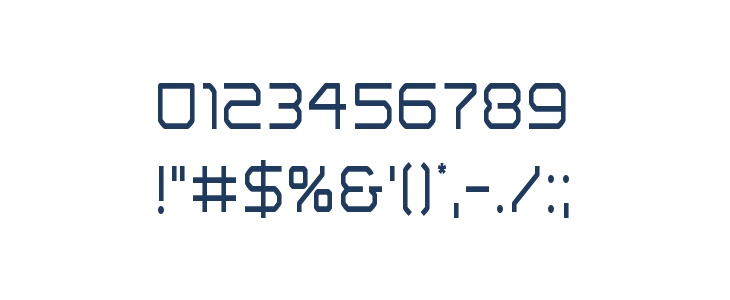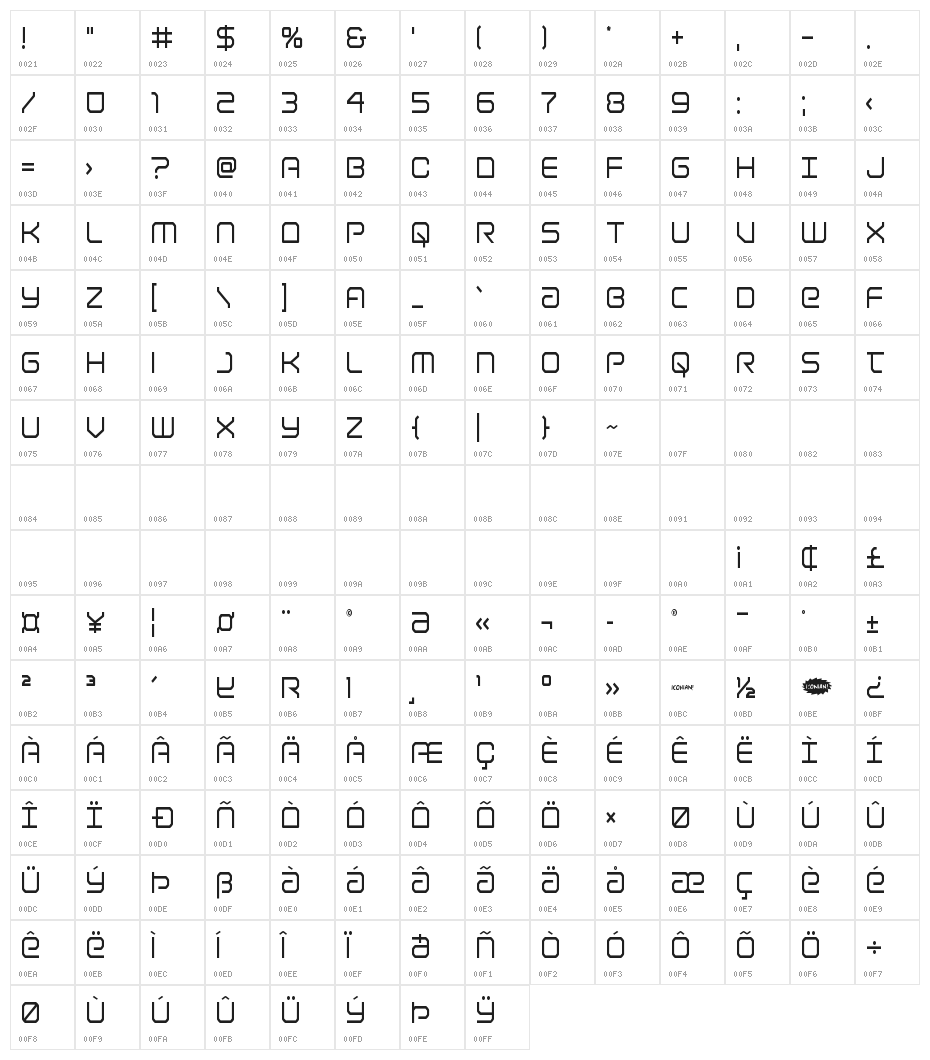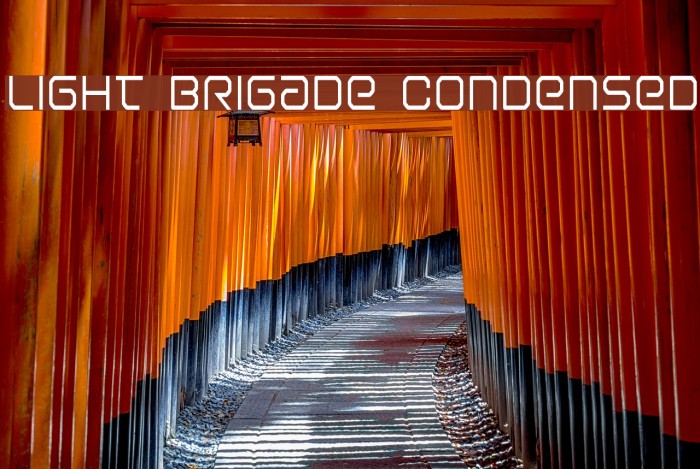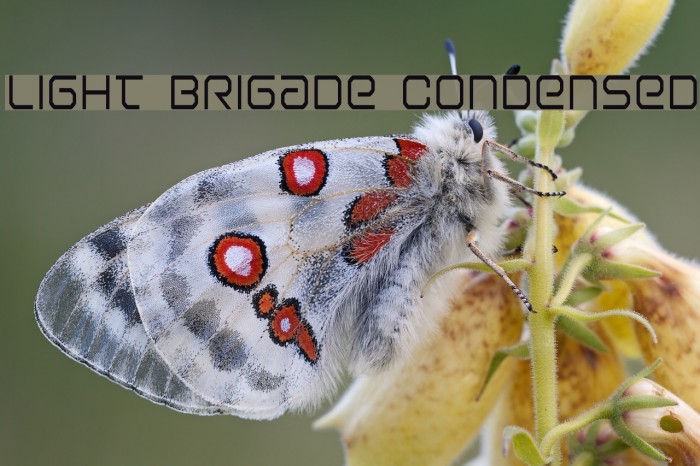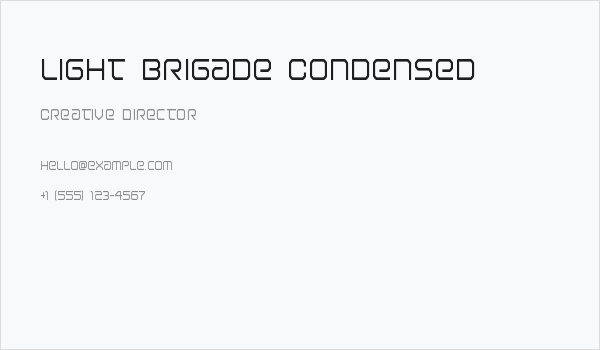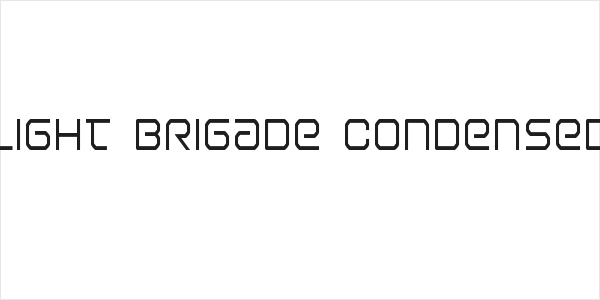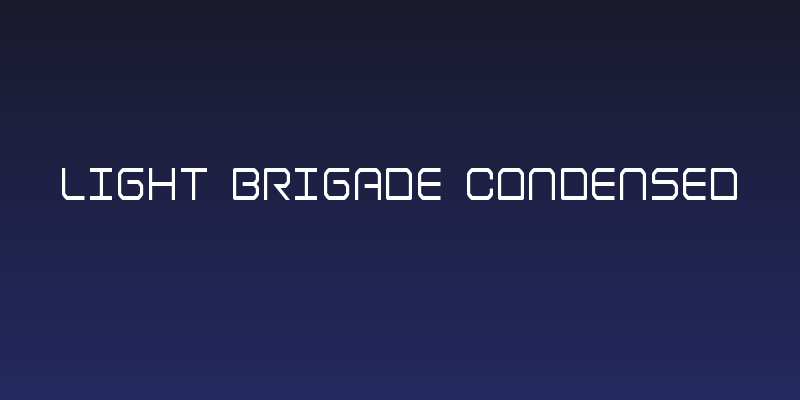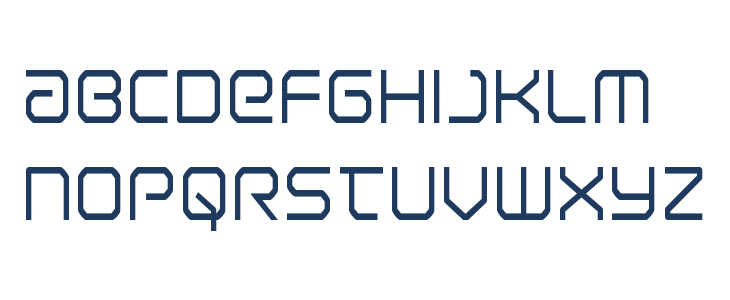
Light Brigade Condensed Font
Light Brigade Condensed Description
This font features a geometric and modern design with a condensed structure. The characters are composed of straight lines and sharp angles, giving it a futuristic and technical appearance. The uppercase and lowercase letters maintain a consistent style, with a uniform height that enhances readability. The numerals and special characters follow the same design principles, ensuring a cohesive look across all glyphs. The overall aesthetic is clean and minimalistic, making it suitable for projects that require a contemporary and sleek typeface.
| Use Case | Headlines, Logos, Digital Interfaces |
| Proposed Projects | Ideal for technology branding, modern posters, digital interfaces, and futuristic designs. |